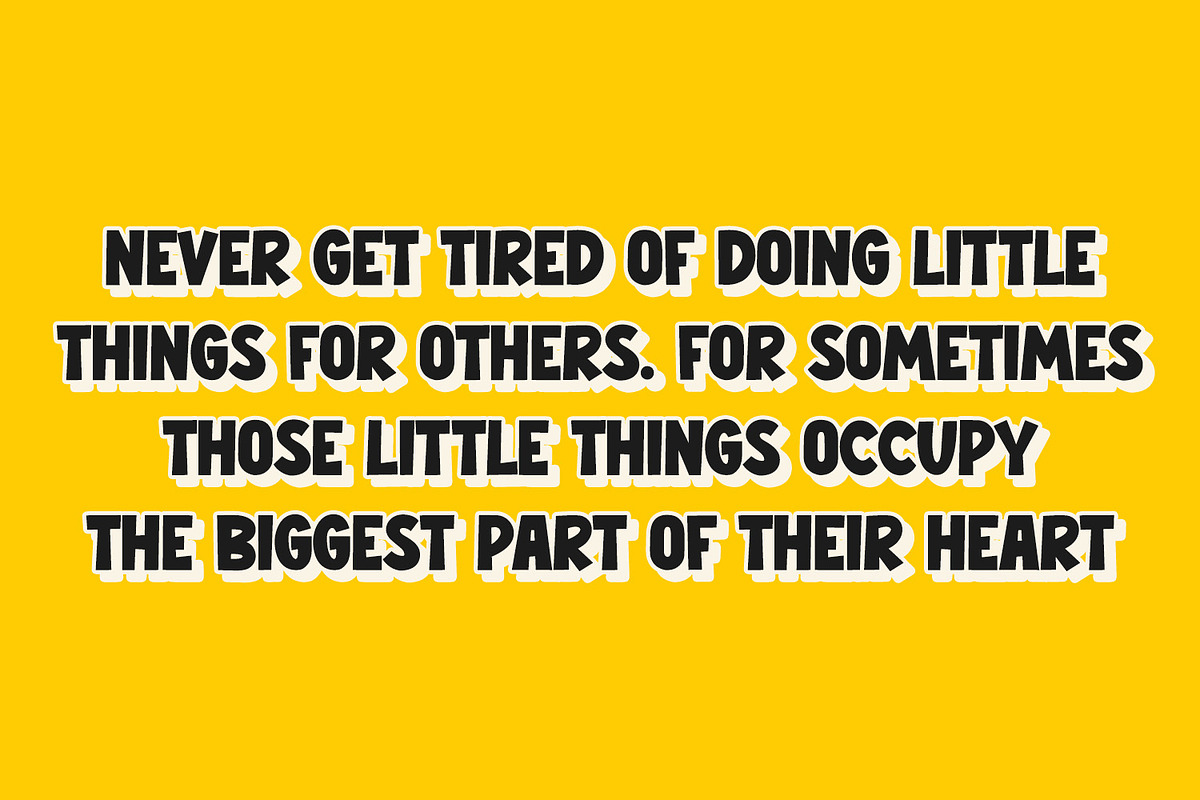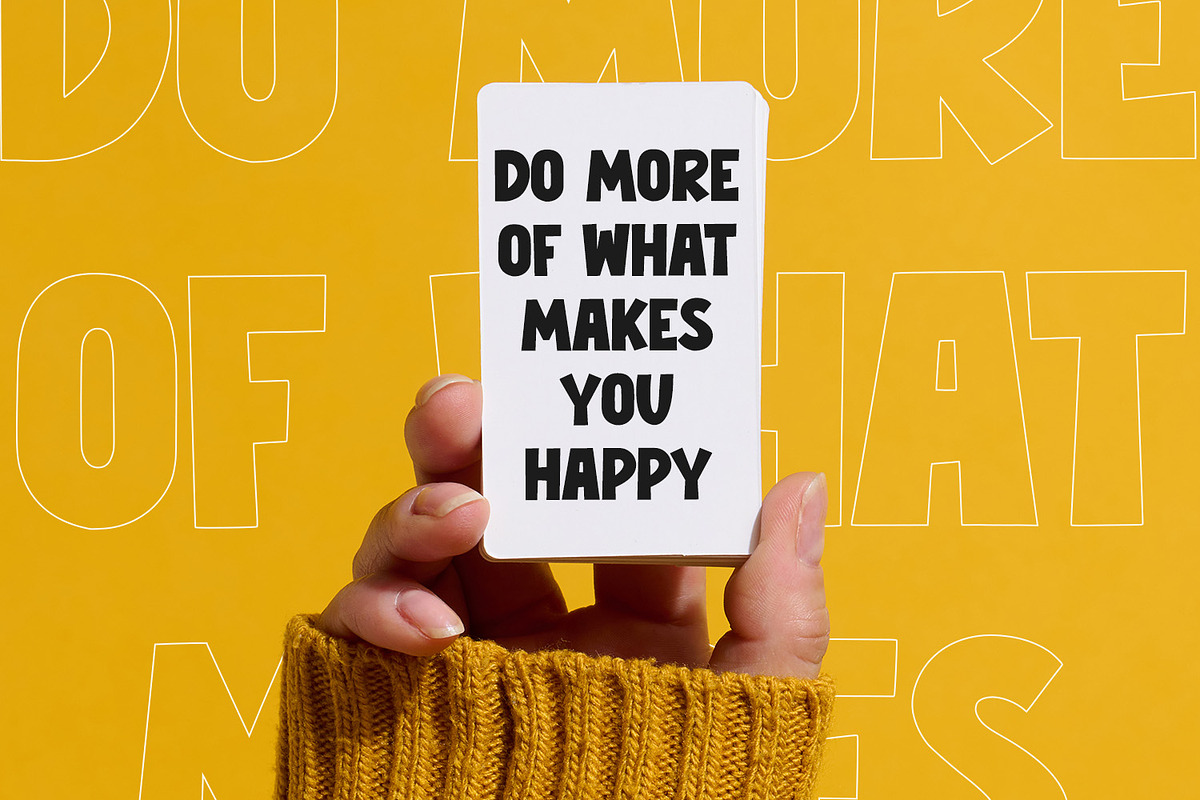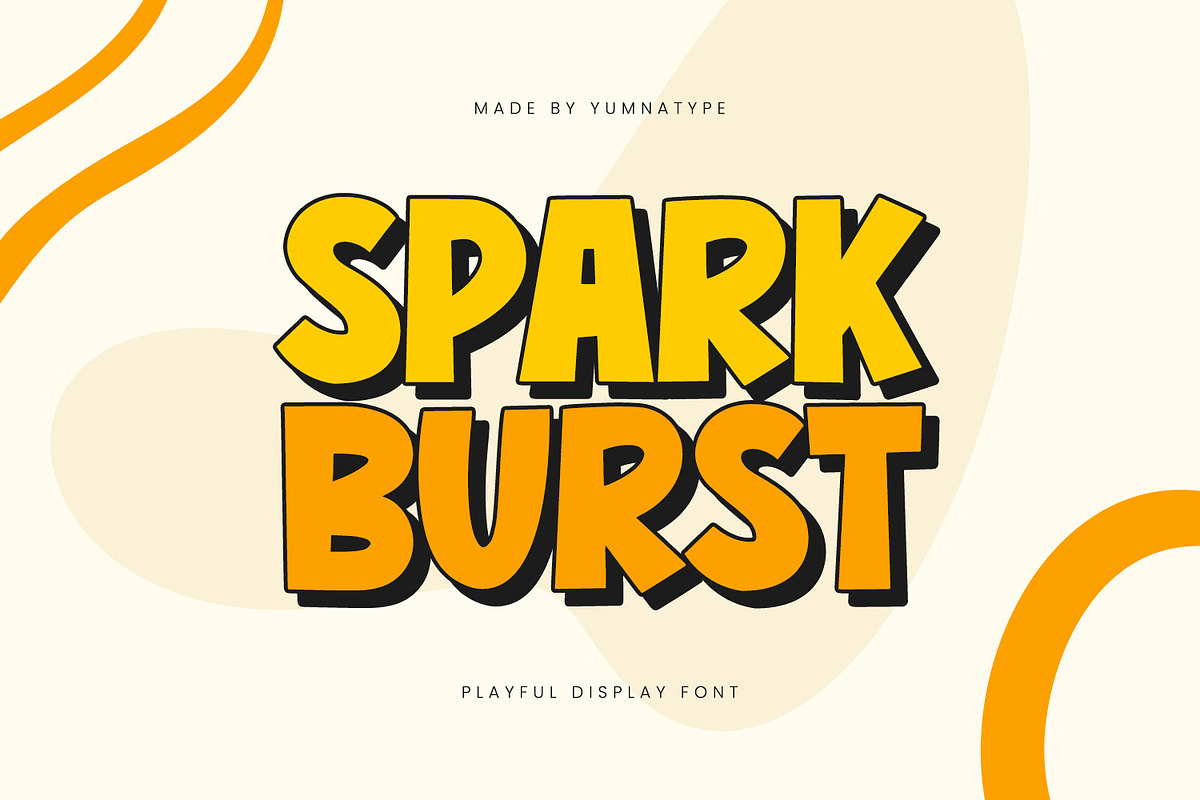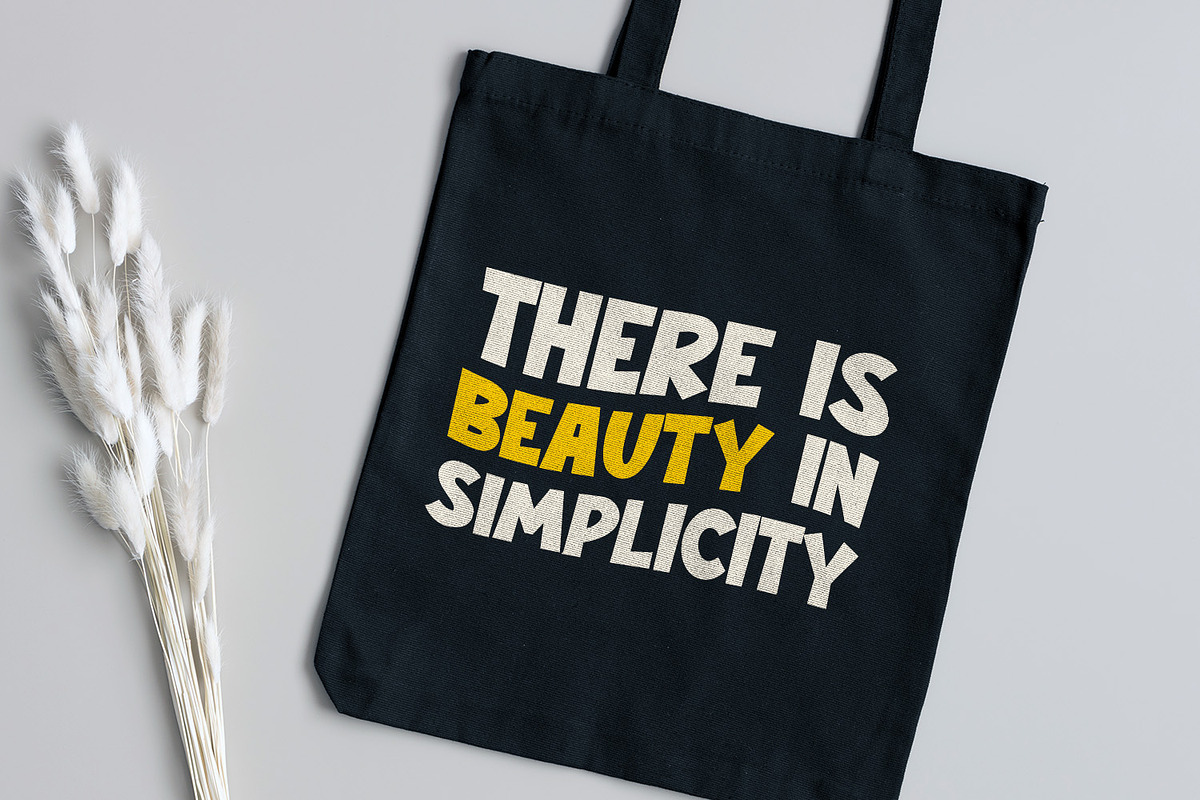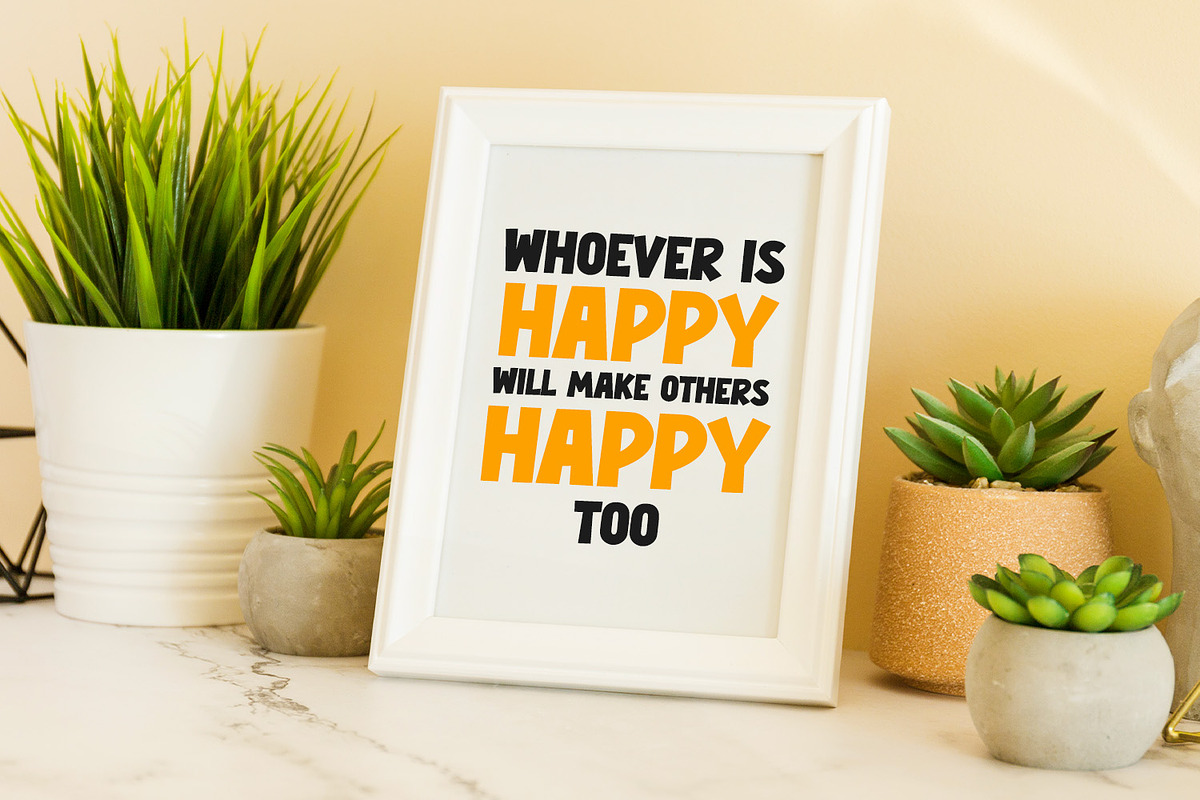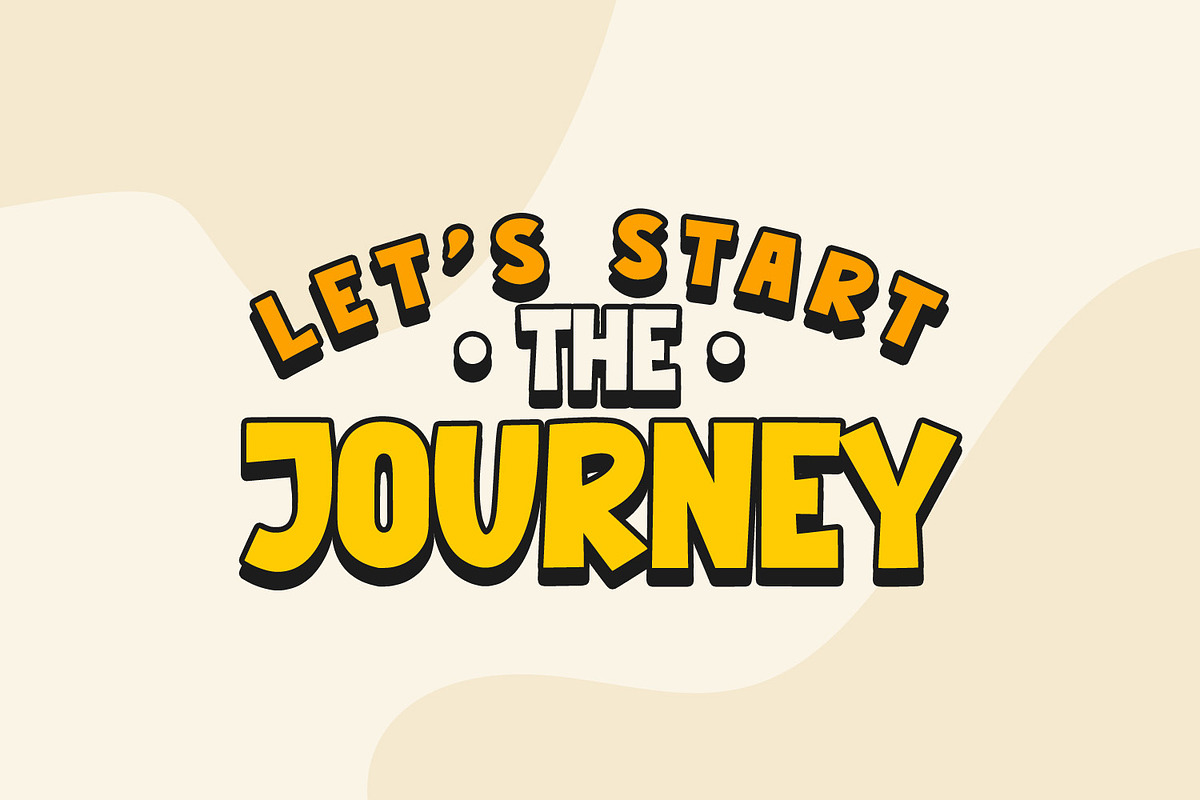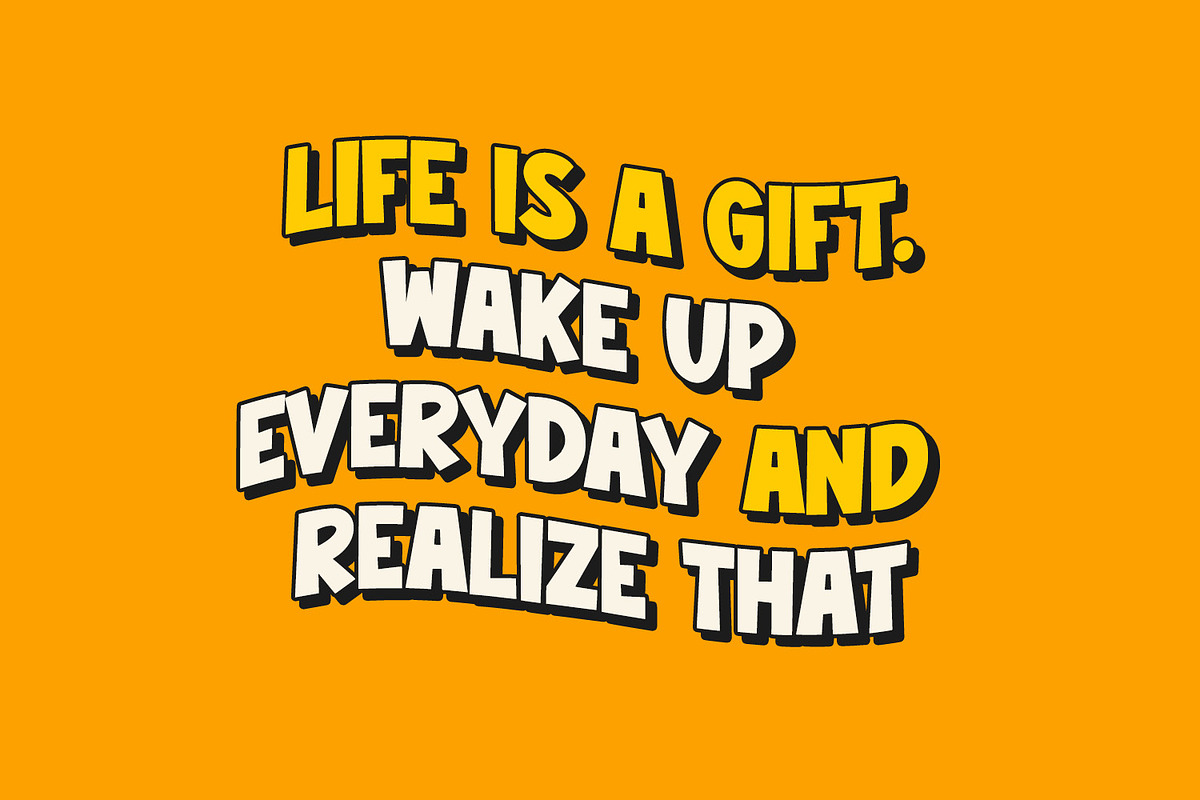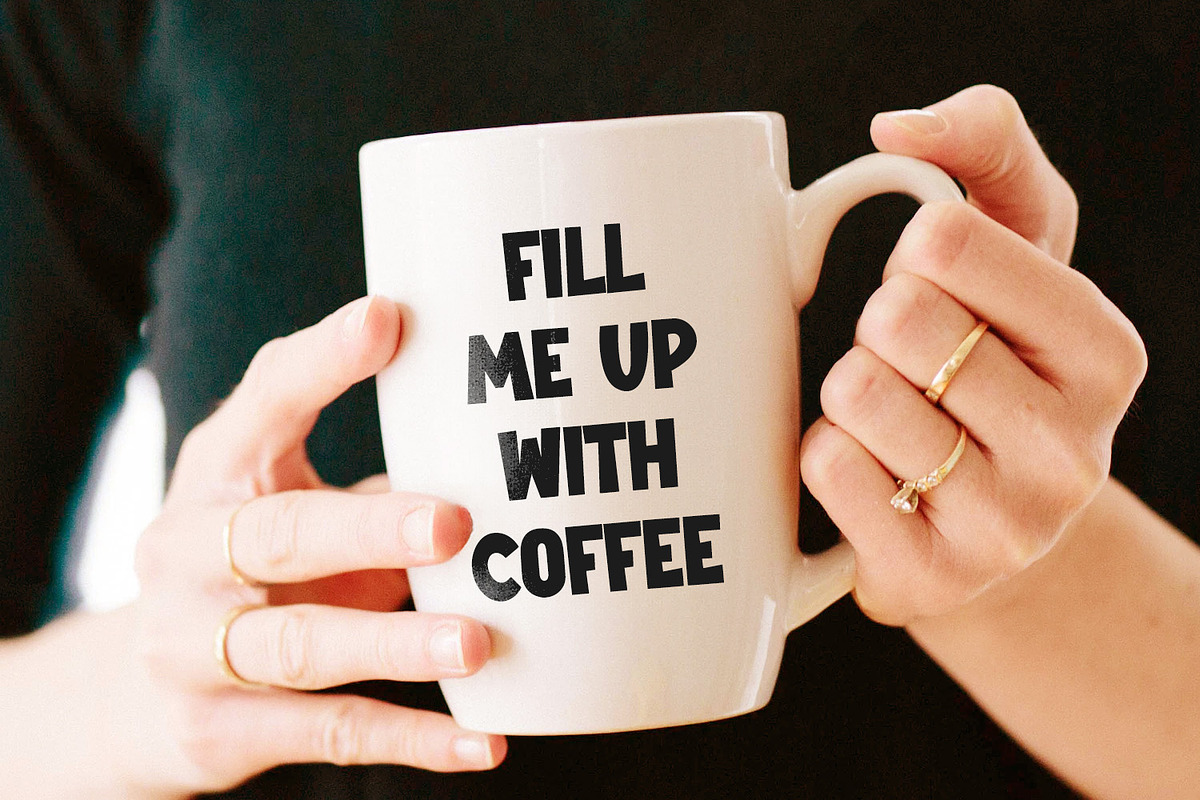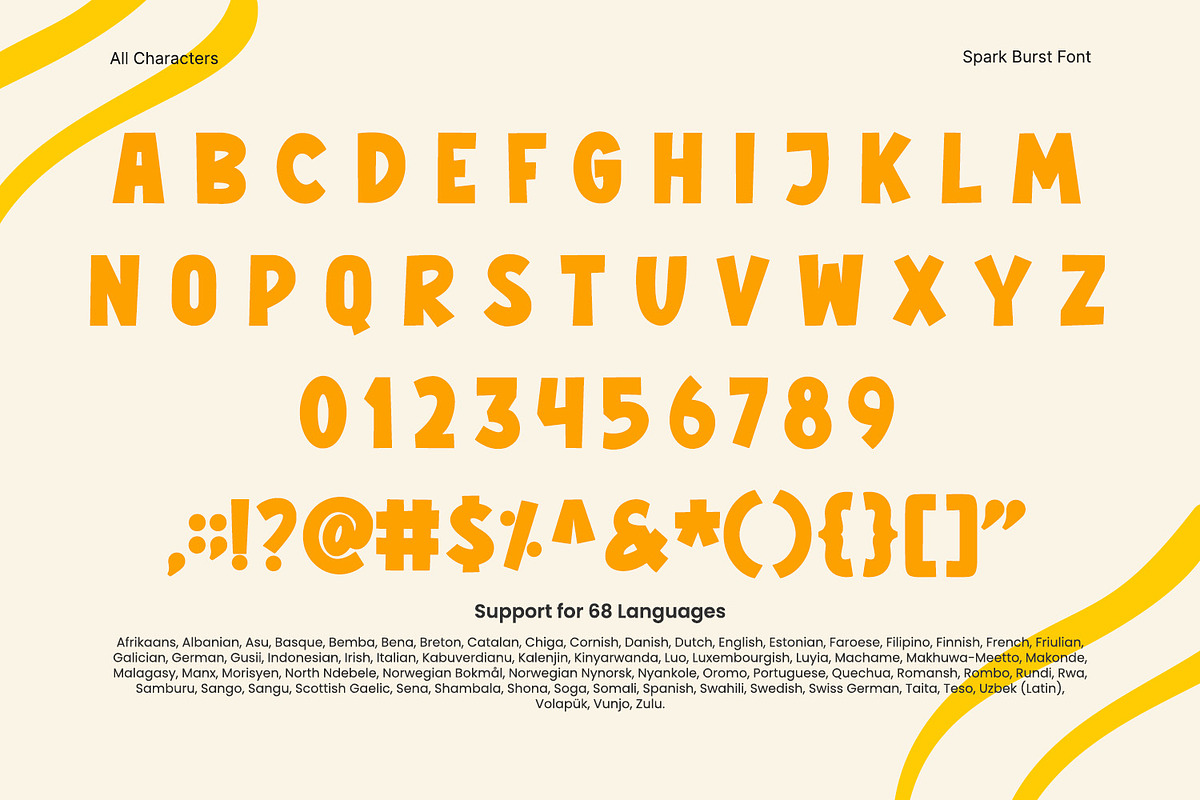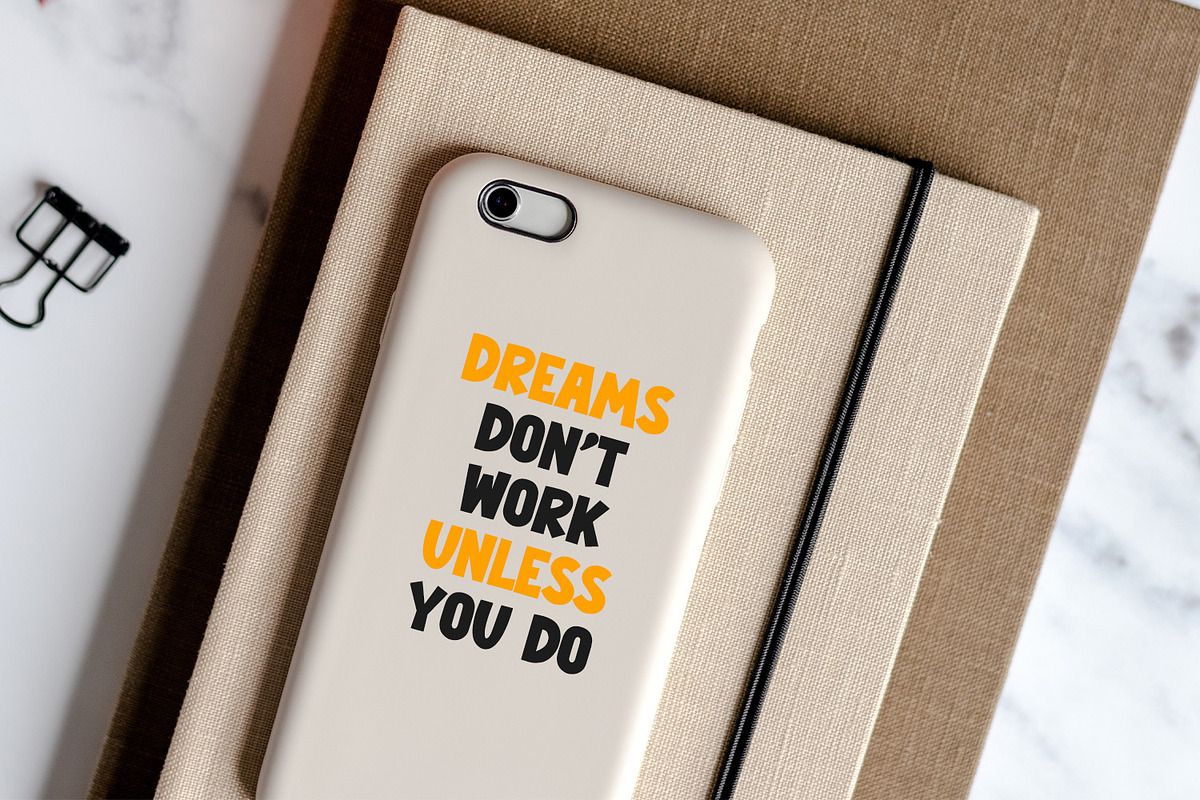
Spark Brust
Spark Brust is an energetic and playful display font designed to make your projects shine. Created in all caps, this font brings a bold and vibrant presence to any design, ensuring your message stands out with clarity and style.
The playful essence of Spark Brust is evident in its rounded shapes, which add a touch of softness and approachability. The low contrast between the strokes maintains a smooth and cohesive look, making it perfect for both casual and professional settings. In addition, enjoy the features here.
Spark Brust fits in headlines, logos, posters, flyers, branding materials, print media, editorial layouts, and many more designs. Find out more ways to use this font by taking a look at the font preview.